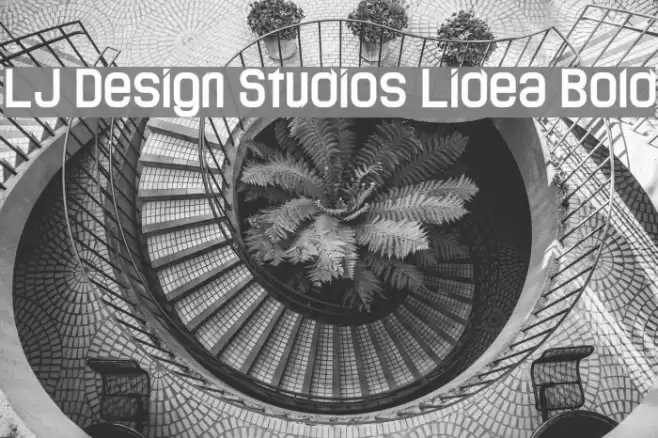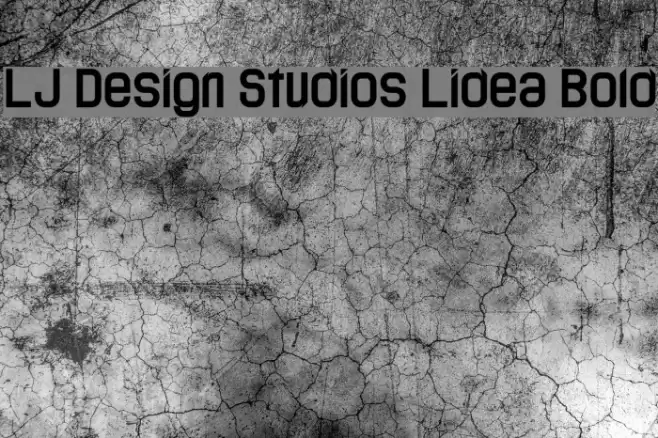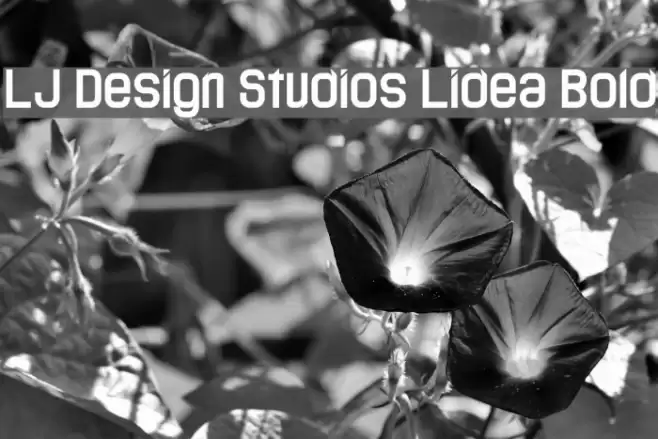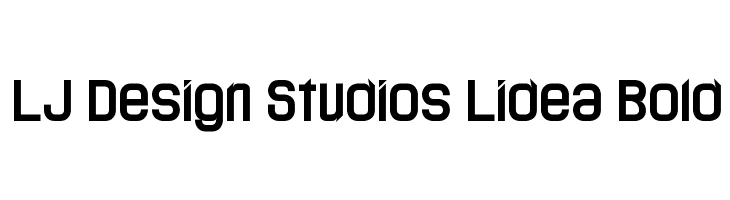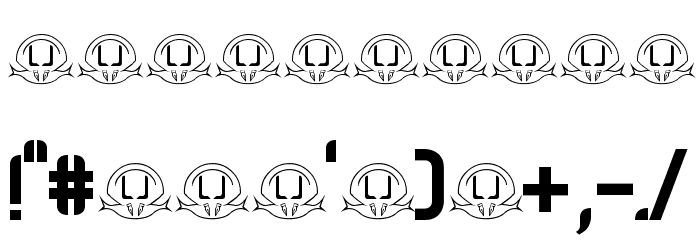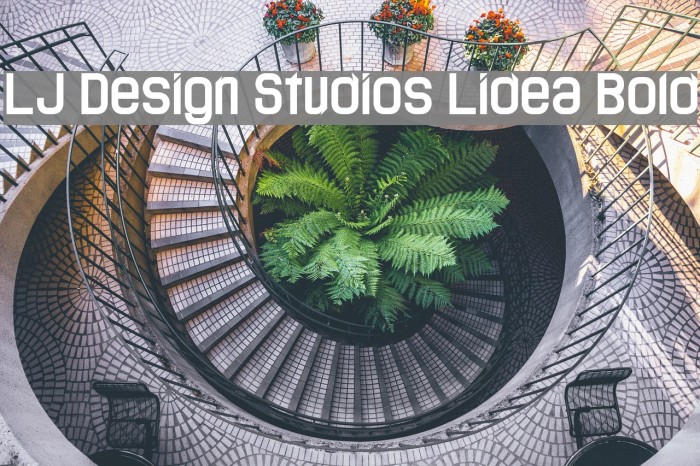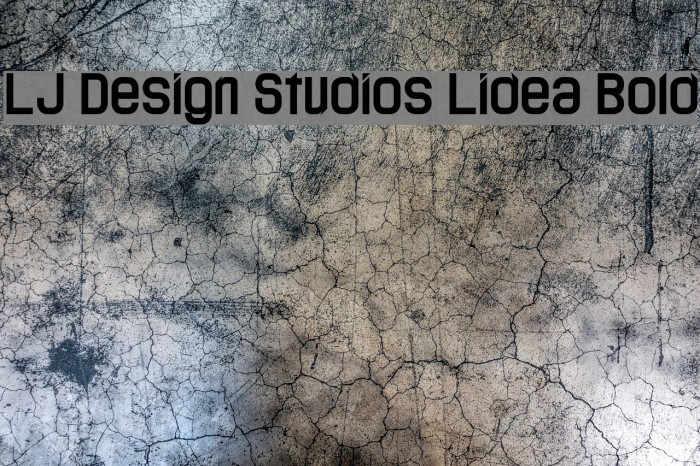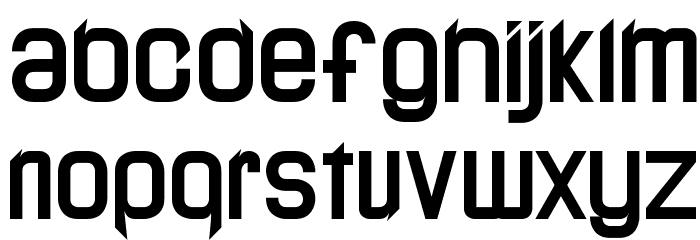
LJ Design Studios Lidea Bold Font
LJ Design Studios Lidea Bold Description
This font features a bold, geometric design with a modern and futuristic aesthetic. The characters are constructed with clean, straight lines and sharp angles, giving it a distinctive and edgy appearance. The uppercase and lowercase letters maintain a consistent style, with a uniform height and width that enhances readability. The numerals and special characters are designed to match the overall style, ensuring a cohesive look across all text elements. This font is ideal for projects that require a strong visual impact, such as branding, advertising, and digital media.
A bold, geometric font with a modern and futuristic design from Uncategorized fonts.
- Proposed Projects: Ideal for branding, advertising, digital media, and any project needing a strong visual impact.